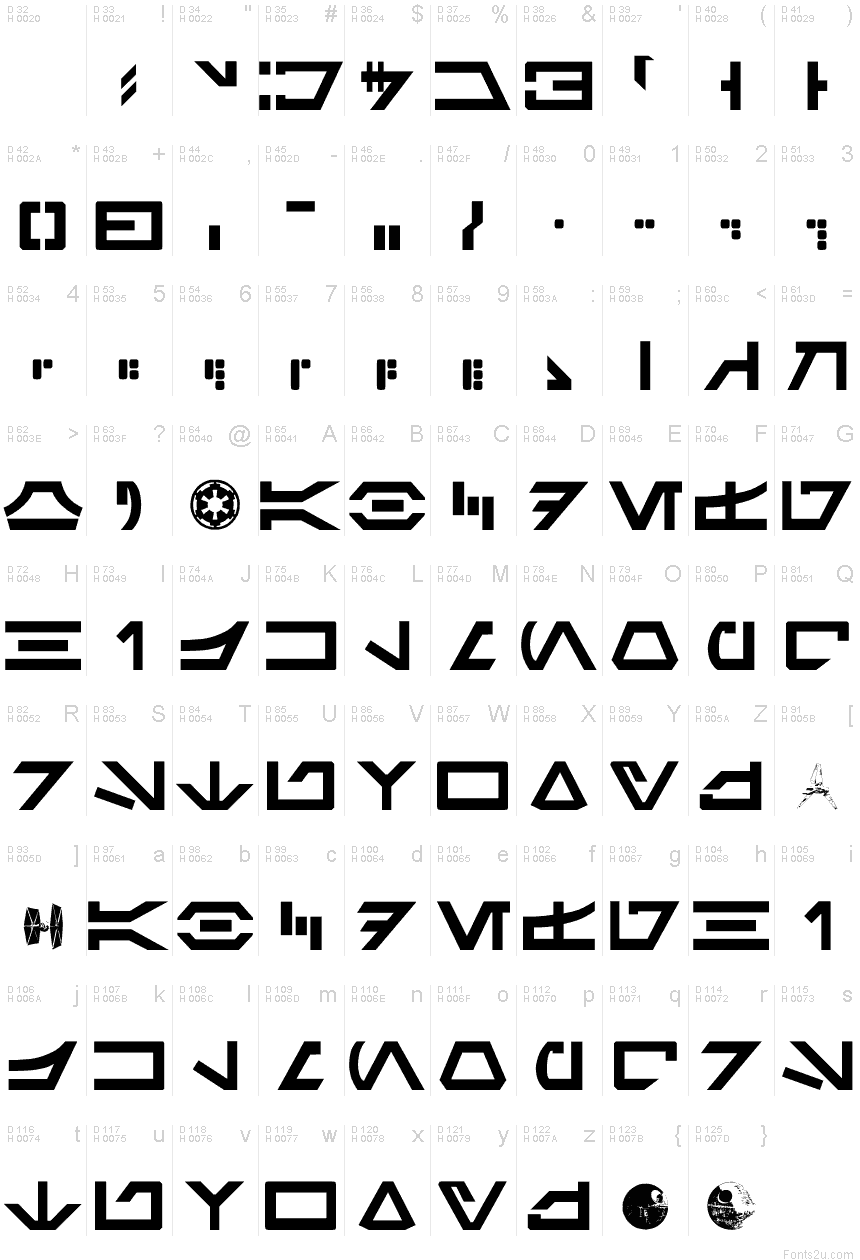
Aurek-Besh
Aurek-Besh font by Boba Fonts is a free sci-fi dingbat typeface that turns ordinary text into a line of bold, angular glyphs. Each symbol feels like it’s been cut from metal plating-thick strokes, sharp corners, and blocky silhouettes that read like signage from a distant spaceport. Tight spacing keeps the rhythm dense and coded, so even short words look like secret transmissions.
This free font shines on fan posters, in-game HUD mockups, cosplay props, stickers, badges, and themed event graphics where you want readable “code” with a cinematic edge. Using Aurek-Besh alongside a clean geometric sans for subtitles or translations lets you keep the fantasy while staying user-friendly, especially at larger title sizes.